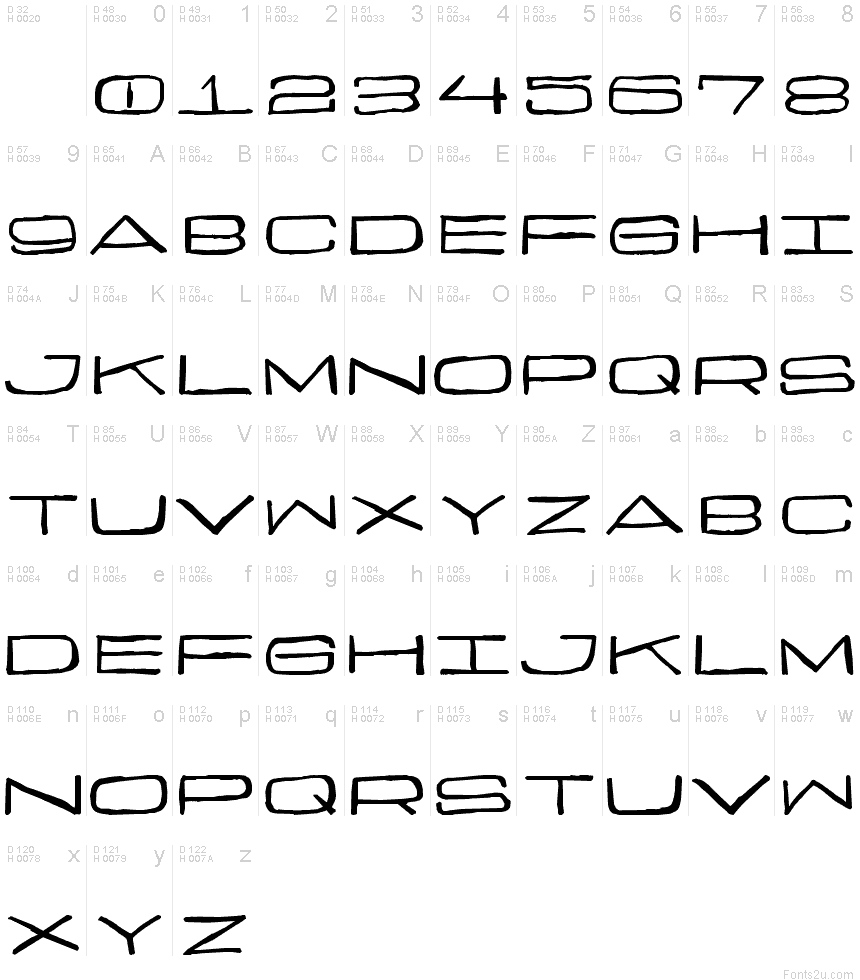
Curmudgeonly
Curmudgeonly font by Jakob Fischer aka PizzaDude is a free eroded display font. Its rounded, tube-like outlines feel scraped, nicked, and slightly unruly, as if a clean futuristic alphabet got dragged across concrete. That tension gives it a wiry, offbeat attitude-part retro tech, part bad mood.
Curmudgeonly shines on album covers, arcade titles, streetwear graphics, poster headlines, zines, YouTube thumbnails, packaging, and event flyers. Set Curmudgeonly large so the rough texture can breathe, and pair this free font with a plain sans serif for body copy to keep the composition crisp.